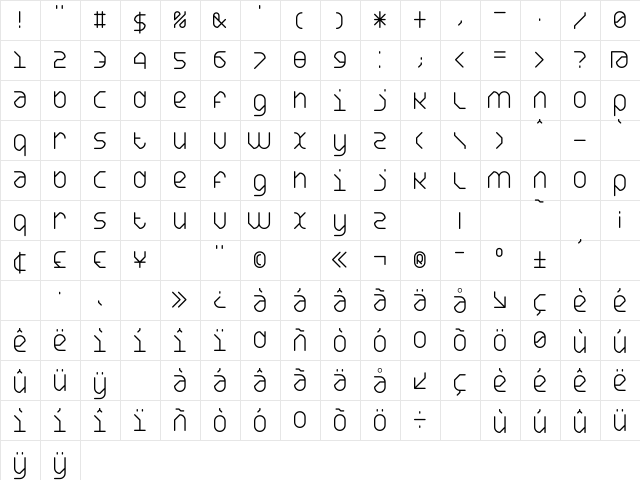
DS Yakuti45R Regular
Design Context for DS Yakuti45R Typeface
DS Yakuti45R takes a measured approach to typography — its balanced proportions and neutral character make it a reliable workhorse for both digital and print work.